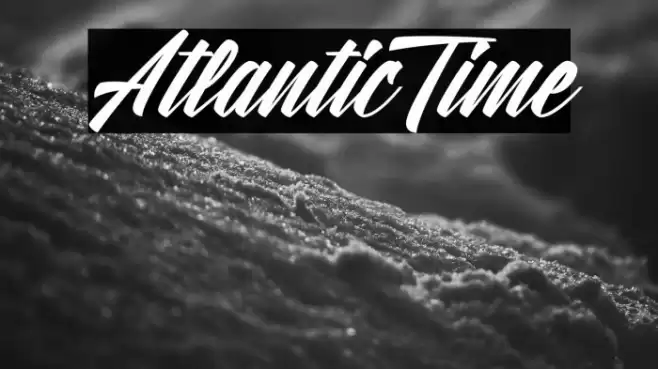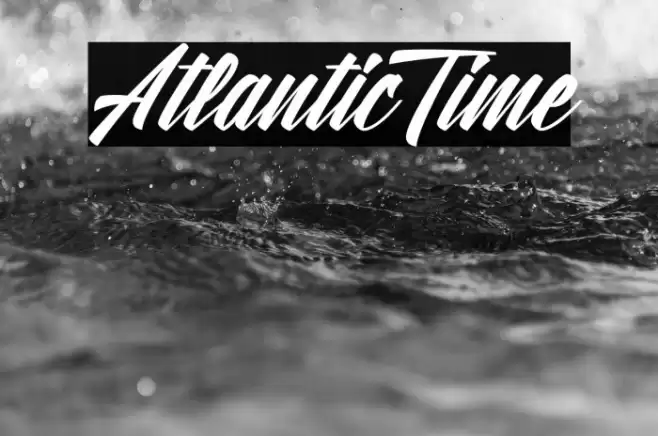
AtlanticTime Font
AtlanticTime Description
This font features a dynamic and flowing script style, characterized by its elegant and cursive letterforms. The strokes are bold and confident, with a slight slant that adds a sense of movement and grace. The uppercase letters are particularly striking, with sweeping curves and flourishes that give them a dramatic flair. The lowercase letters maintain a consistent style, with smooth connections between each character, enhancing the font's fluidity. This script is ideal for creating a sense of sophistication and elegance, making it suitable for formal invitations, branding, and decorative purposes. The overall appearance is both classic and modern, appealing to a wide range of design aesthetics.
A bold, flowing script font with elegant, cursive letterforms and a slight slant from Uncategorized fonts.
- Proposed Projects: Ideal for wedding invitations, luxury branding, greeting cards, and decorative headings.
- Overall Style: Elegant, Modern
- Use Case: Logos, Headlines, Invitations